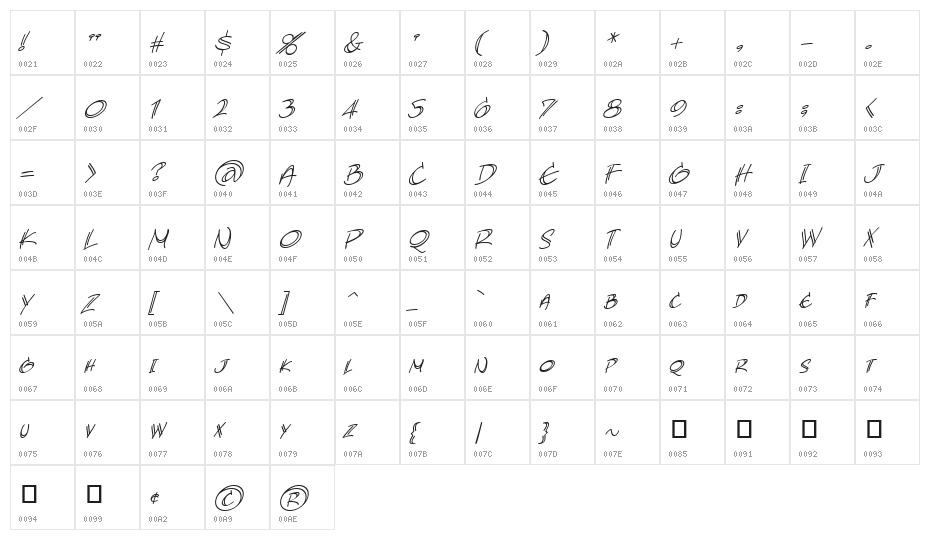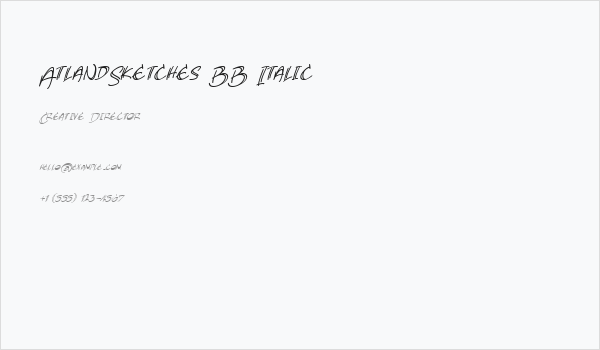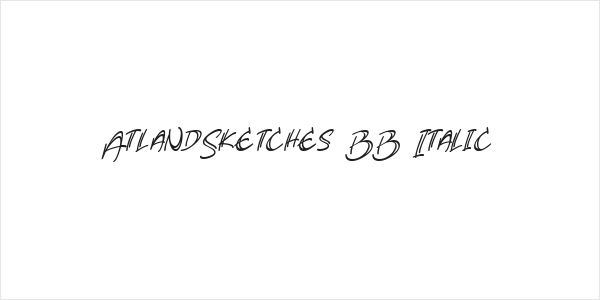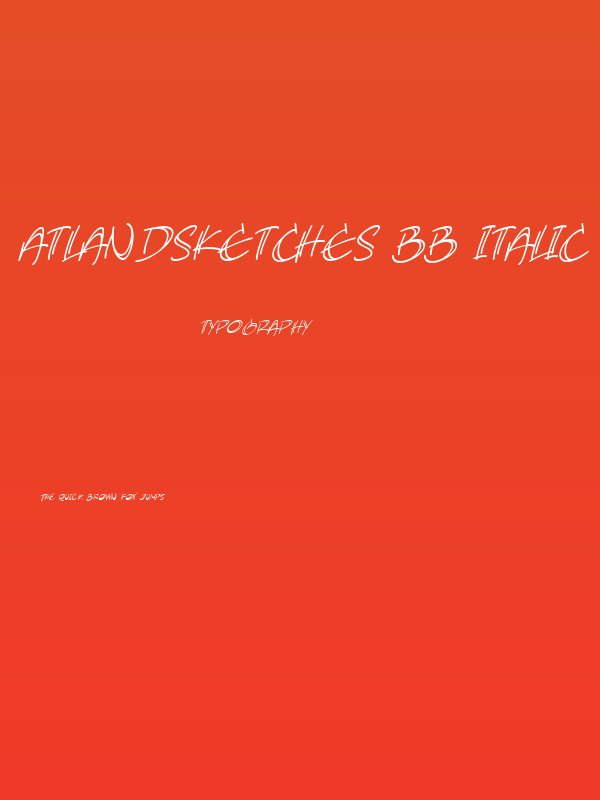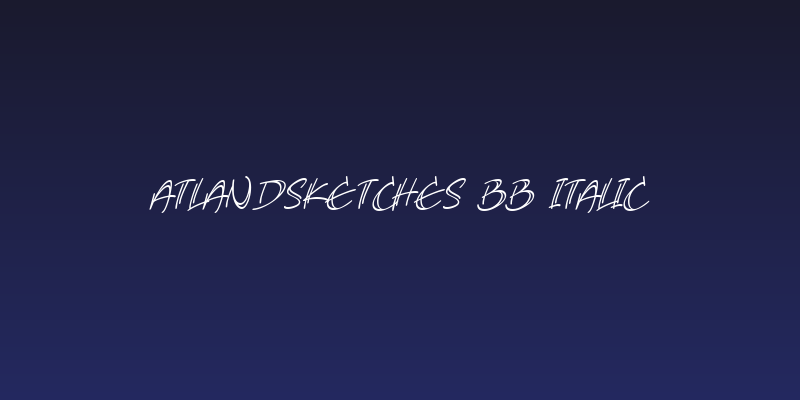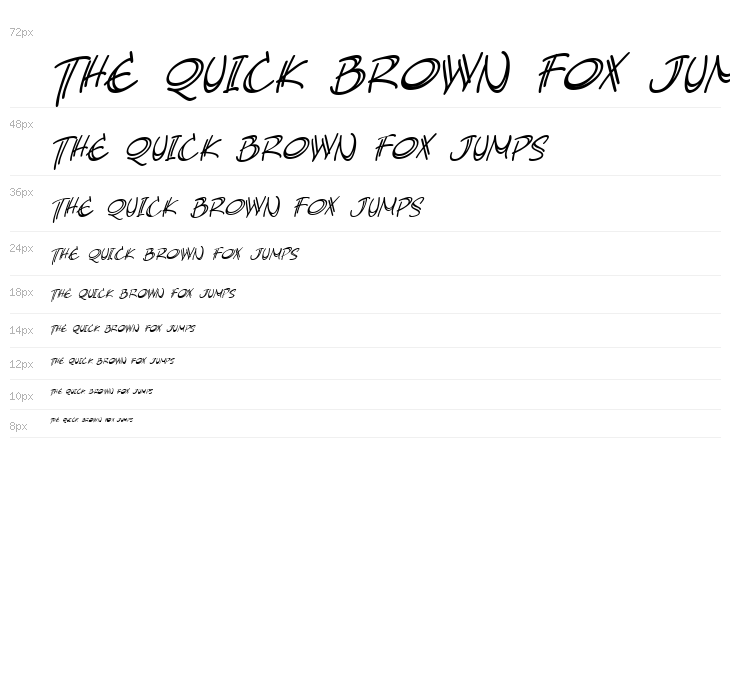
AtlandSketches BB Italic Font
AtlandSketches BB Italic Description
This font exhibits a dynamic and energetic style, characterized by its flowing, cursive script that mimics the fluidity of handwriting. The letters are slightly slanted, enhancing the italicized appearance and adding a sense of motion. Each character is crafted with smooth, curved lines and subtle flourishes, giving it a playful yet elegant feel. The uppercase and lowercase letters maintain a consistent style, with a moderate contrast in stroke thickness that adds depth without overwhelming the design. The numerals and special characters are equally expressive, ensuring a cohesive look across all text elements.
| Proposed Projects | Ideal for creative projects such as invitations, greeting cards, branding, and logo design where a personal, artistic touch is desired. |